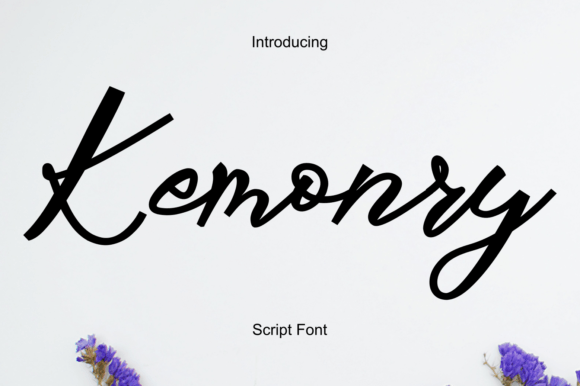
Journey into the enchanting world of Kemonry, a whimsical handwritten font family that will ignite your imagination and bring a touch of magic to your digital creations. With its charming and friendly personality, Kemonry effortlessly captures the innocence and wonder of childhood, making it the perfect choice for projects that aim to connect with young audiences or evoke a sense of nostalgia and joy.
Kemonry's natural and unique style grants it remarkable adaptability, allowing it to seamlessly blend into a myriad of design concepts. Unleash your creativity and let your imagination run wild, for the possibilities are boundless. Whether you're crafting whimsical illustrations, designing playful logos, or creating heartwarming invitations, Kemonry will effortlessly elevate your designs to new heights of enchantment.
Step into a realm where imagination reigns supreme and dreams come true. With Kemonry as your trusted companion, you'll discover a world where stories come alive and characters leap off the page. Create captivating social media posts that resonate with your audience, design eye-catching marketing materials that leave a lasting impression, or craft personalized greeting cards that convey your heartfelt messages with a touch of whimsy. The possibilities are endless, and the only limit is your imagination.
Kemonry's versatility extends beyond its aesthetic appeal. Designed with both beauty and functionality in mind, Kemonry ensures your designs remain legible and effortless to read, even in smaller sizes. Its carefully crafted letterforms and smooth curves enhance readability, making it the ideal choice for a wide range of applications. Whether you're designing a children's book, creating educational resources, or developing a user-friendly website, Kemonry ensures that your message is conveyed with clarity and impact.
With Kemonry at your fingertips, you gain access to a treasure trove of creative possibilities. Its playful nature opens doors to imaginative projects that will spark joy and laughter. Its versatility makes it a valuable asset for designers seeking a font that can effortlessly adapt to various design styles and concepts. Discover the magic of Kemonry and transform your creative visions into captivating realities. Unleash your imagination and embark on a journey where whimsy meets practicality, and where your designs will leave a lasting impression on all who encounter them.